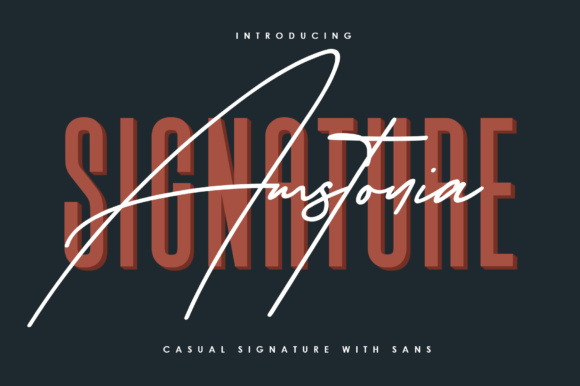
The Handcrafted Charm of Amstonia Font: A Designer’s Delight
Have you ever been in the middle of a design project, pouring your heart and soul into every detail, only to realize that something is missing? For me, it was a recent branding project for a local artisan, where I was struggling to find the perfect font that would capture the essence of handmade craftsmanship. That’s when I stumbled upon Amstonia Font, and it was love at first sight! 💕
Amstonia Font is a beautiful, handcrafted typeface that comes in two stunning versions: sans and signature. Both versions are perfectly suited for a wide range of design applications, including signatures, stationery, logos, typography quotes, magazine or book covers, and more! In this article, I’ll share my experience with Amstonia Font, its features, and how to make the most of it in your designs.
An Honest Review of Amstonia Font
What I Love About Amstonia Font ✨
- 💯 The handcrafted feel: Amstonia Font has a unique, authentic look that will add a touch of warmth and personality to your designs.
- ✅ Versatility: The font comes in two versions (sans and signature), making it suitable for a wide range of design projects.
- 🎨 OpenType features: Amstonia Font features a range of OpenType features, including glyphs and stylistic alternates, that will take your typography to the next level.
- 👍 Easy to read: Despite its handcrafted look, Amstonia Font is surprisingly easy to read, making it perfect for body text and headlines.
While Amstonia Font is an amazing typeface, there are a few things to keep in mind:
- 🤔 Limited language support: Amstonia Font may not support all languages, so be sure to check the character set before using it for a project.
- ⚠️ Not suitable for very small text: Due to its handcrafted nature, Amstonia Font may not be the best choice for very small text, such as captions or footnotes.
The Backstory of Amstonia Font
Amstonia Font was designed by a talented type designer who wanted to create a font that would capture the essence of handmade craftsmanship. The designer spent countless hours perfecting the font, pouring over every detail to ensure that it was both beautiful and functional. The result is a stunning typeface that’s perfect for designers who want to add a touch of authenticity to their designs.
Q: What is Amstonia Font?
Amstonia Font is a beautiful, handcrafted typeface that comes in two stunning versions: sans and signature. It’s perfect for designs that require a touch of authenticity and handmade charm.
Q: What can I use Amstonia Font for?
Amstonia Font is suitable for a wide range of design applications, including signatures, stationery, logos, typography quotes, magazine or book covers, and more!
Q: Is Amstonia Font easy to read?
Yes, Amstonia Font is surprisingly easy to read, making it perfect for body text and headlines.